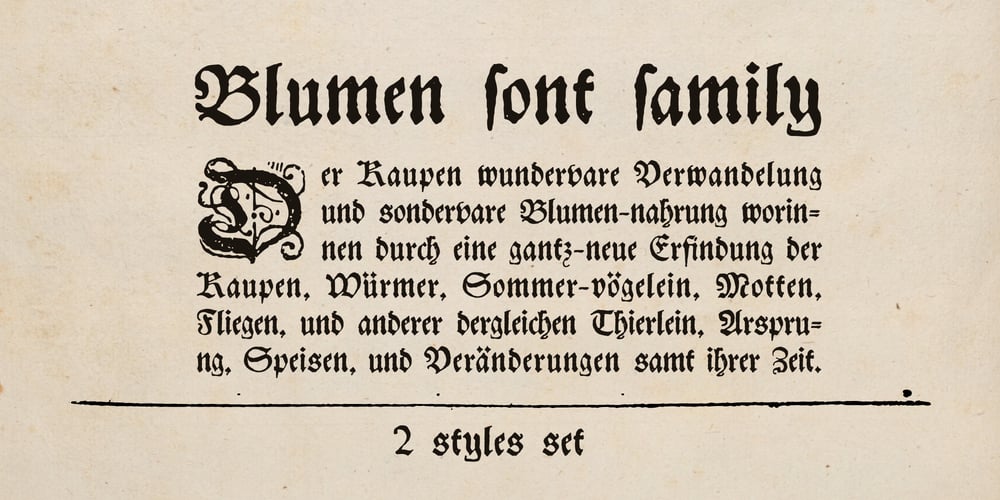
Blumen
Blumen font
Blumen Font Family was designed by Roman Korolev and published by Kaer. Blumen contains 2 styles and family package options. This font family based on vintage German book called “Der Raupen wunderbare Verwandlung und sonderbare Blumennahrung.” by Merian, Maria Sibylla and printed in Frankfurt am Mayn in 1683.I manually redesign initials and regular style fonts from this folio. Also, I’ve added some modern symbols.I’m happy to present to you my new font family. Blumen font family has Initials and Regular styles. It’s all you need to precisely imitate medieval style text. Use Drop cap style as a decorative element at the beginning of a paragraph or section, other part of the paragraph should be in Regular style.You’ll get:* Initials & Regular styles* Uppercase and lowercase* Multilingual support* Numbers* Symbols* Punctuation* LigaturesPlease feel free to request any help you need: kaer.pro@gmail.comBest, Roman.Thank you!